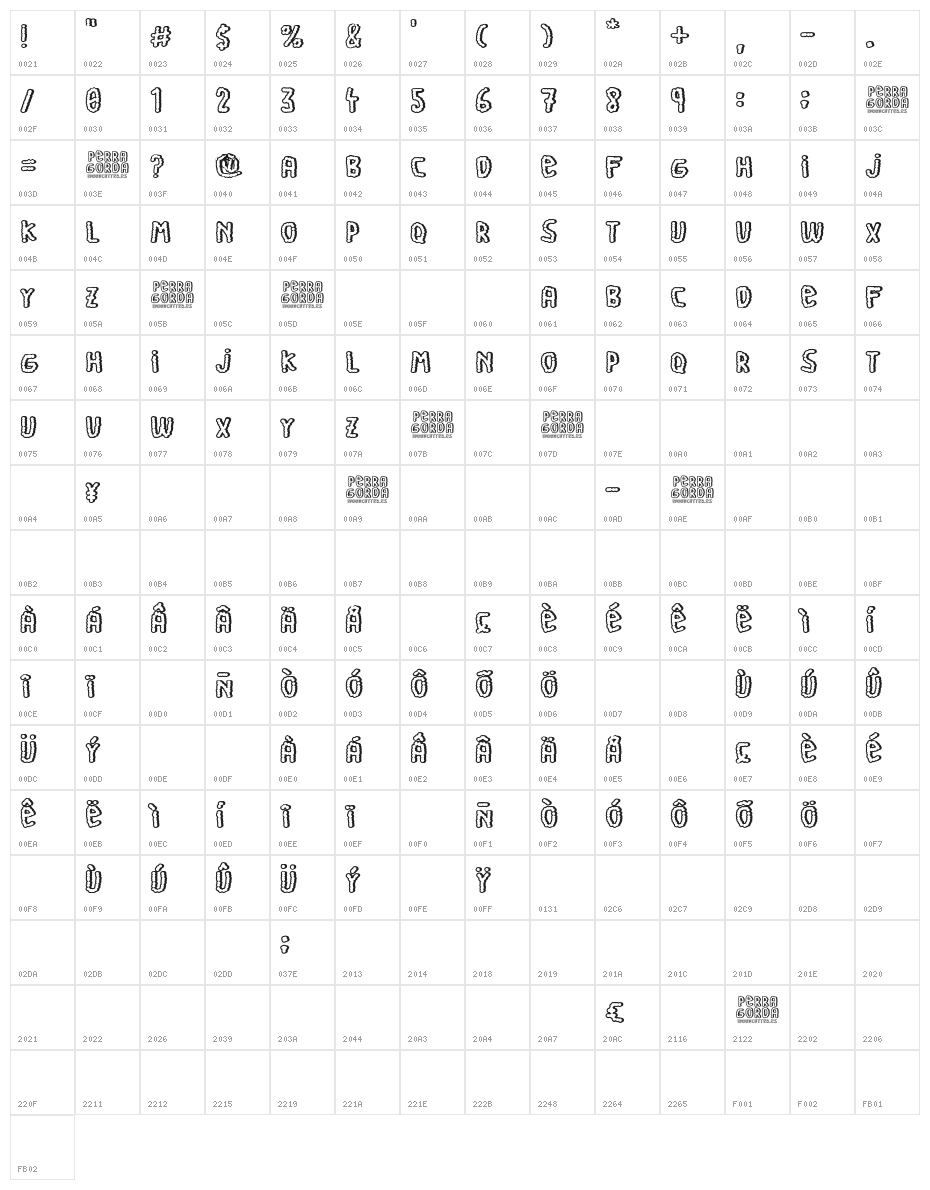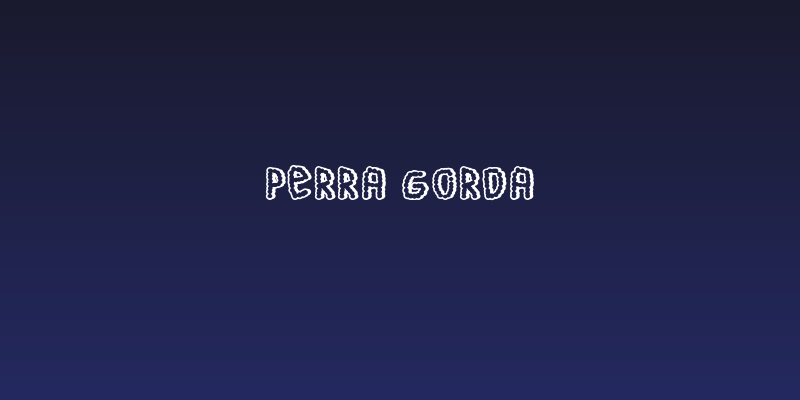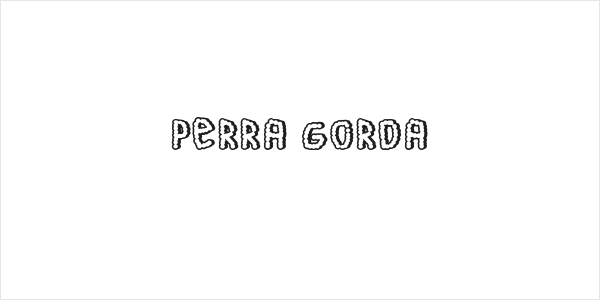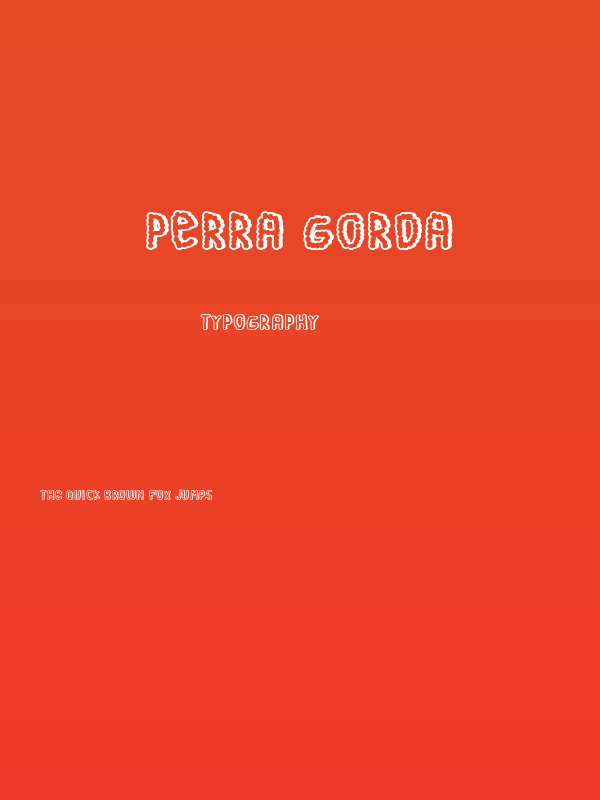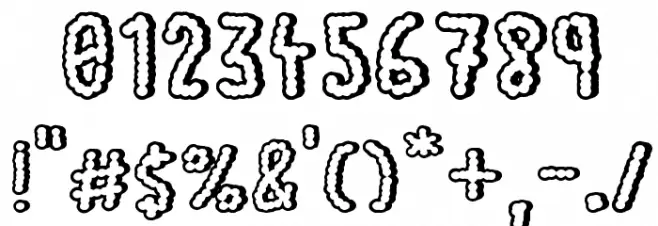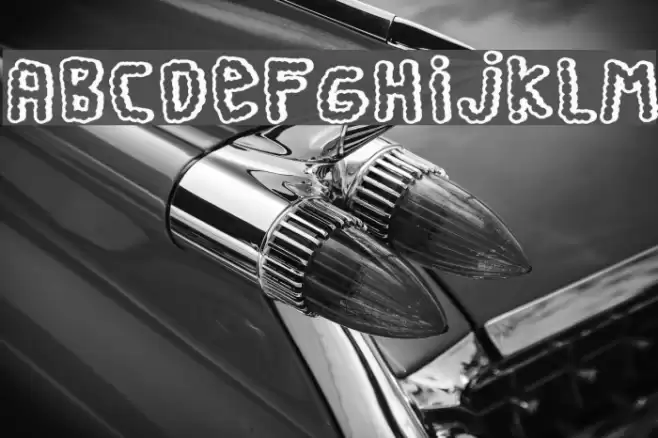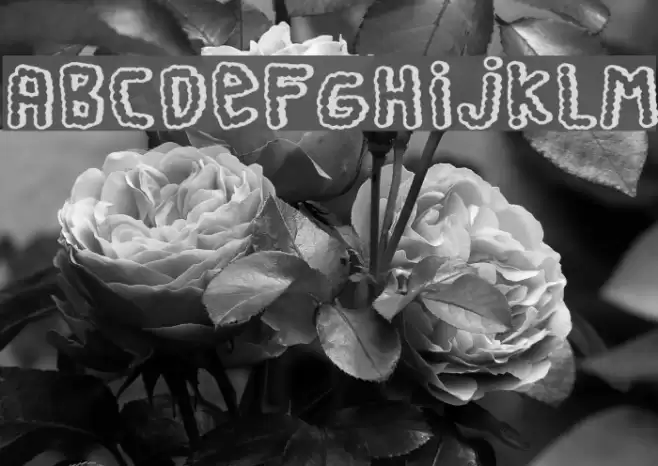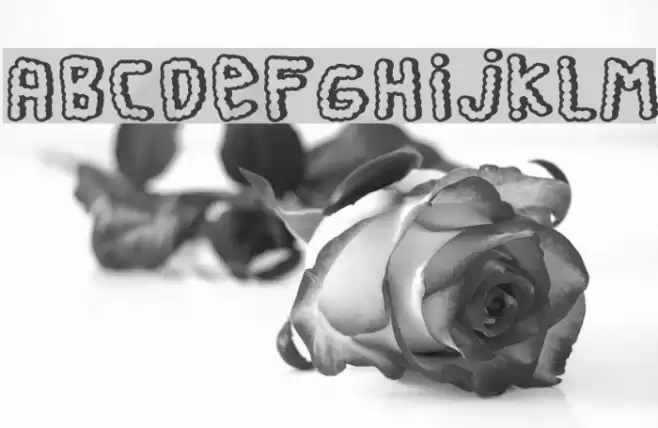
Perra Gorda Font
Perra Gorda Description
This playful and whimsical font features bold, bubble-like characters with a hand-drawn appearance. Each letter is outlined with a thick, uneven stroke, giving it a textured and dynamic look. The font maintains a consistent height across uppercase and lowercase letters, adding to its cohesive style. Numbers and special characters are designed with the same bubbly effect, ensuring a uniform aesthetic throughout. The font's unique style makes it stand out, perfect for projects that require a fun and informal touch.
| Overall Style | Playful, Whimsical |
| Proposed Projects | Ideal for children's books, playful branding, party invitations, and creative posters. |